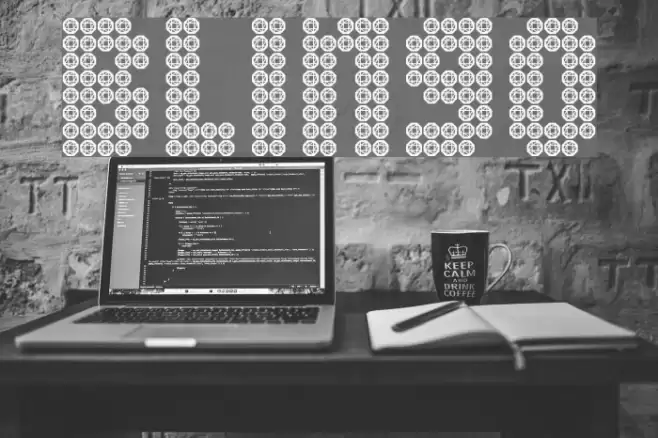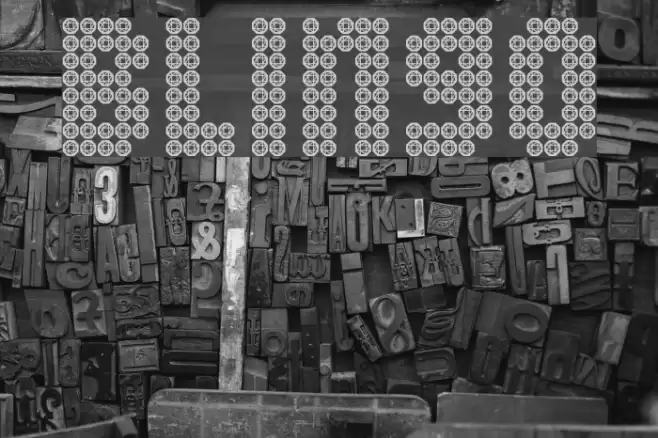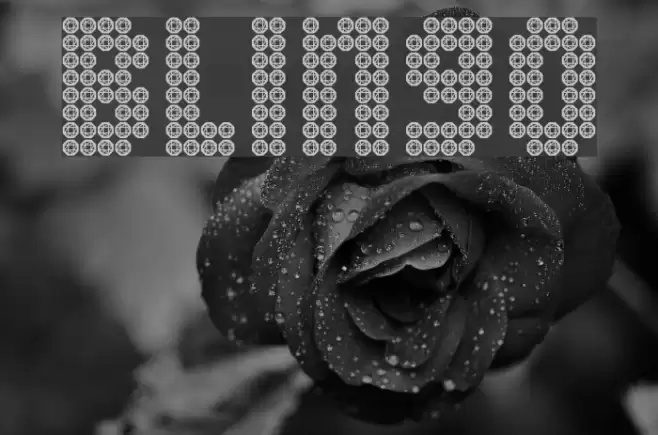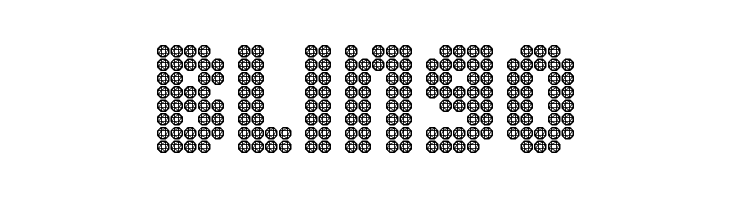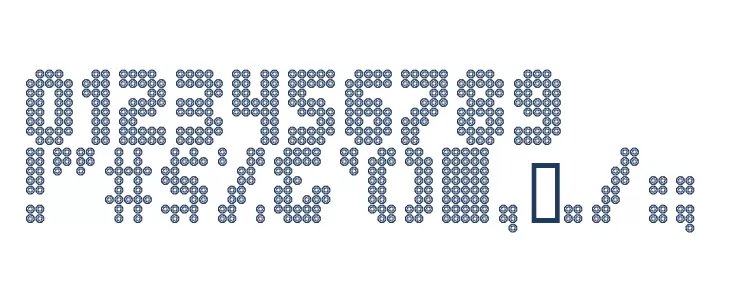
Blingo Font
Blingo Description
This font features a unique and eye-catching design, with each character composed of a series of small circular elements that create a pixelated effect. The circles are arranged in a grid-like pattern, giving the font a digital and modern appearance. The characters are bold and have a uniform thickness, providing a strong visual impact. This style is reminiscent of LED displays or digital signage, making it ideal for projects that require a futuristic or tech-inspired aesthetic. The font includes a full set of uppercase and lowercase letters, numbers, and a selection of special characters, ensuring versatility in its application.
A bold, pixelated font with a modern, digital aesthetic from Uncategorized fonts.
- Proposed Projects: Ideal for digital displays, tech-themed designs, video game graphics, and futuristic branding.
- Use Case: Headlines, Logos, Digital Displays